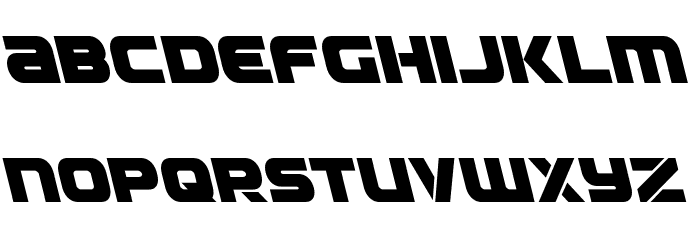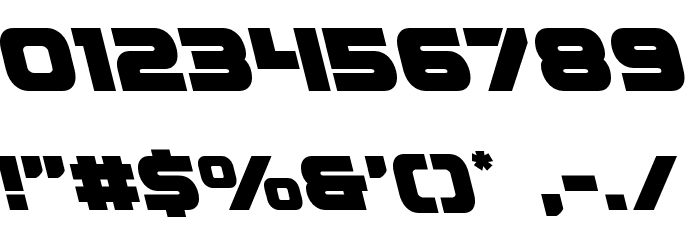
Ozda Leftalic Font
This font features a bold, futuristic design with a strong geometric influence. The characters are slightly slanted, giving a sense of motion and dynamism. The letterforms are wide and blocky, with sharp angles and a consistent stroke width that conveys a sense of strength and stability. The font includes both uppercase and lowercase letters, numerals, and a variety of special characters, making it versatile for various design needs. Its unique style is suitable for projects that require a modern and edgy look.
A bold, futuristic font with geometric and dynamic slanted characters.
- Font: Ozda Leftalic
- Proposed Projects: Ideal for sci-fi themed designs, technology branding, video game titles, and modern posters.
- Width: Expanded